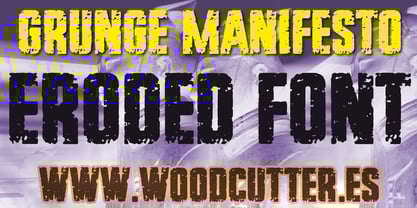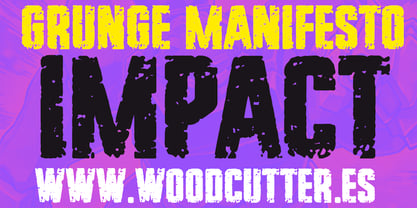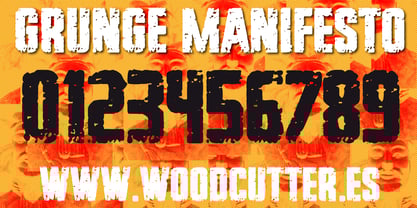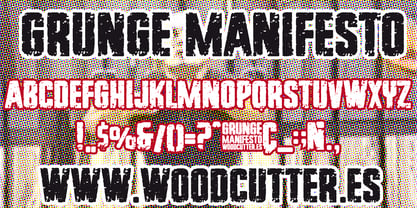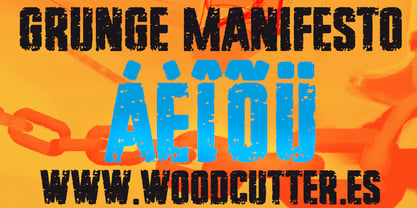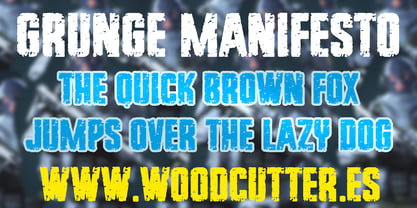
Grunge Manifesto
The Grunge Manifesto Font Family was designed by Jordi Manero and published by Woodcutter. Grunge Manifesto contains 1 styles. More about this family
“Grunge Manifesto” is an uppercase font with accent support, designed with a worn, eroded aesthetic, as if time, rust, or weather had corroded each letter. Its rough and broken texture gives it a rebellious, raw, and authentic personality, perfect for designs aiming to convey power, protest, or urban decay. Each character shows natural imperfections, cracks, and faded areas, resulting in a unique, handmade feel.
“Grunge Manifesto” fits perfectly in projects related to punk, alternative rock, counterculture, or DIY aesthetics, evoking street posters, photocopied zines, and peeling walls. Its bold yet imperfect appearance makes it ideal for headlines, covers, t-shirts, or any design needing a strong and gritty identity.
More than just a decorative typeface, “Grunge Manifesto” is a visual statement — a typographic scream that transforms decay into graphic expression, delivering message and attitude through every letter.